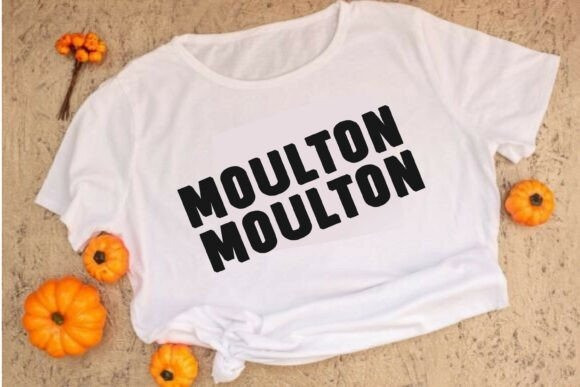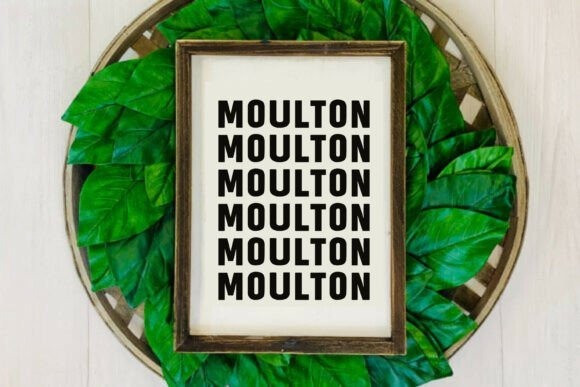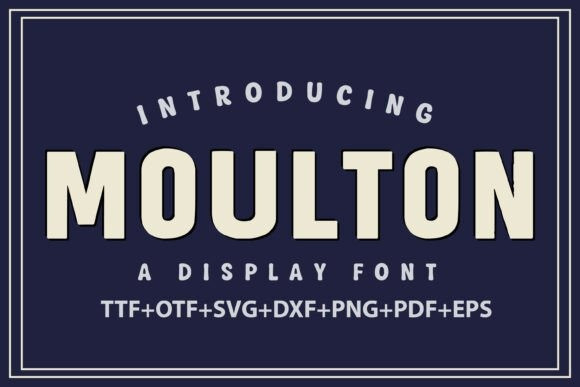
Moulton Font is a bold all-caps display typeface—a sturdy sans-serif font engineered for powerful headlines and vintage branding. Broad stems, soft rounded corners, and slightly condensed proportions give this retro headline font a compact punch, while square-ish bowls, clean open counters, and an even vertical rhythm keep the lettering crisp and readable at any size. The typeface sits between athletic and heritage signage, making it an ideal logo font, badge type, and poster typography choice. Use this vintage display font for packaging, menus, beer labels, apparel, and storefront signage; it excels in arches, curved text, and tight lockups. Run it in flat color or apply inline/outline styles for extra impact. If you’re searching for a dependable uppercase alphabet for sports, cafes, breweries, or outdoor goods, the Moulton typeface delivers modern-retro character and professional polish.